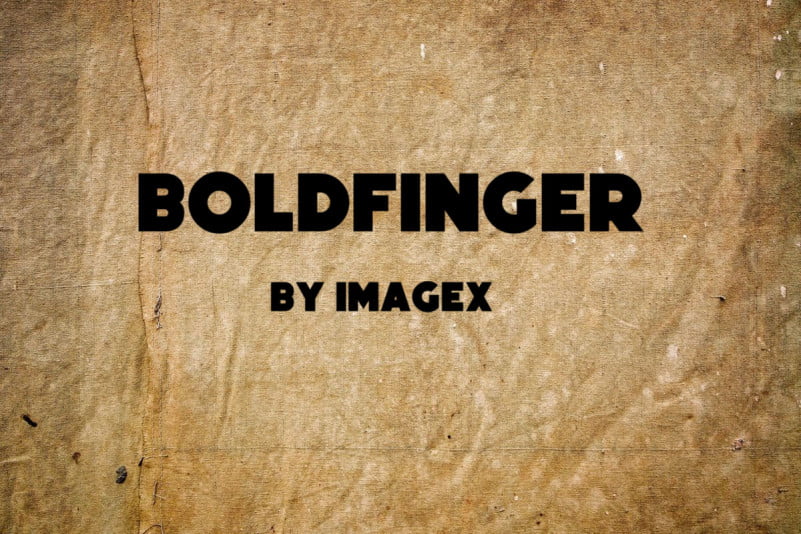
Boldfinger Font
Boldfinger Sans Serif Font is a bold sans serif typeface by imagex. It is based on geometric forms, so it is a clear and straightforward typeface. It has an industrial feel and it also reminds of street signage. It is ideal to be used in logos, packages and titles.
Boldfinger Sans Serif Font